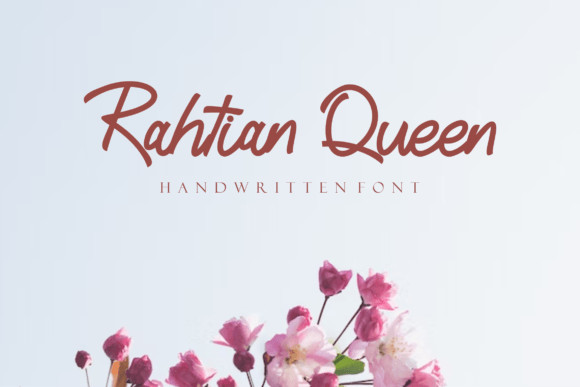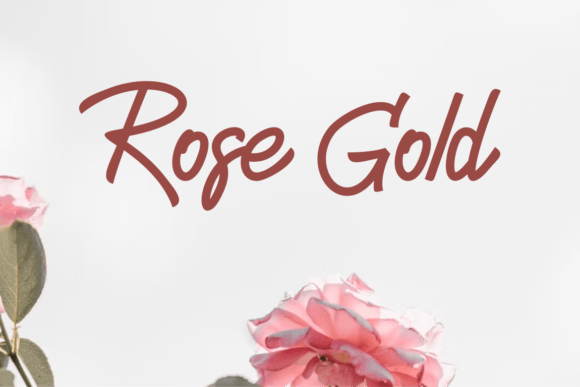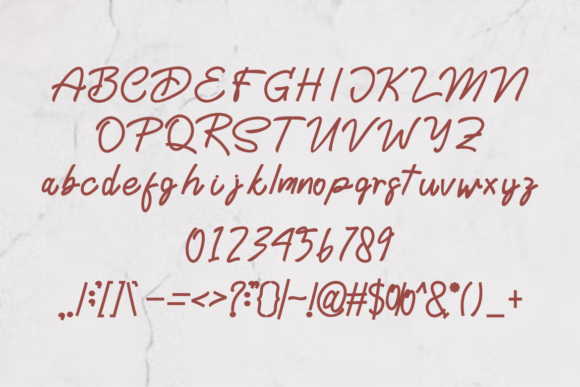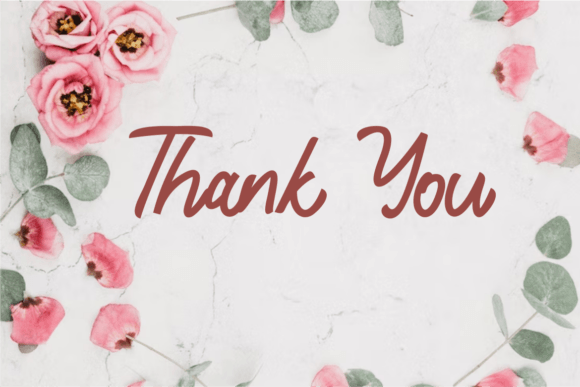
Rahtian Queen Font
**Rahtian Queen**: *Where Class Meets Elegance*
Rahtian Queen isn’t just a font; it’s a masterpiece of classy elegance in handwritten script form, meticulously designed to bring a touch of romance to your creative projects. With its graceful and refined characters, this script font effortlessly adds an aura of sophistication to your work, making it suitable for a wide spectrum of applications, from greeting cards to headlines.
What sets Rahtian Queen apart is its remarkable ability to blend class and elegance seamlessly. The font’s meticulously crafted characters exude an air of grace and authenticity, making it a versatile choice for projects that aim to add a romantic and stylish touch. Rahtian Queen is the font that can effortlessly elevate your designs, infusing them with a sense of timeless beauty and romance.
Rahtian Queen strikes the perfect balance between classic style and handwritten charm, making it a versatile and captivating choice for projects that demand both sophistication and a touch of romance.
In branding and logos, Rahtian Queen adds a unique sense of character and refinement, giving your brand a distinctive and memorable signature. It possesses the power to convey a brand’s elegance and values while infusing an element of romance.
For greeting cards, headlines, and elegant designs, the font’s graceful characters enhance the visual impact of your content, making it more captivating and memorable. Whether you’re working on print materials, social media graphics, or any other visual content, Rahtian Queen brings an air of timeless beauty and romance to your projects.
One of Rahtian Queen’s most remarkable qualities is its adaptability. It can transition seamlessly from a formal and polished tone to a more relaxed and friendly one, making it suitable for a wide range of creative applications. Its ability to evoke elegance and romance ensures that it remains a cherished choice for designers and creators across diverse industries.
In summary, Rahtian Queen is more than just a font; it’s a design asset that masterfully combines class with elegance. Its unique blend of graceful characters and timeless allure positions it as an indispensable tool for anyone seeking to infuse sophistication and romance into their visual communication. Embrace the class and elegance of Rahtian Queen, and watch your designs come alive with grace and enduring romantic appeal.